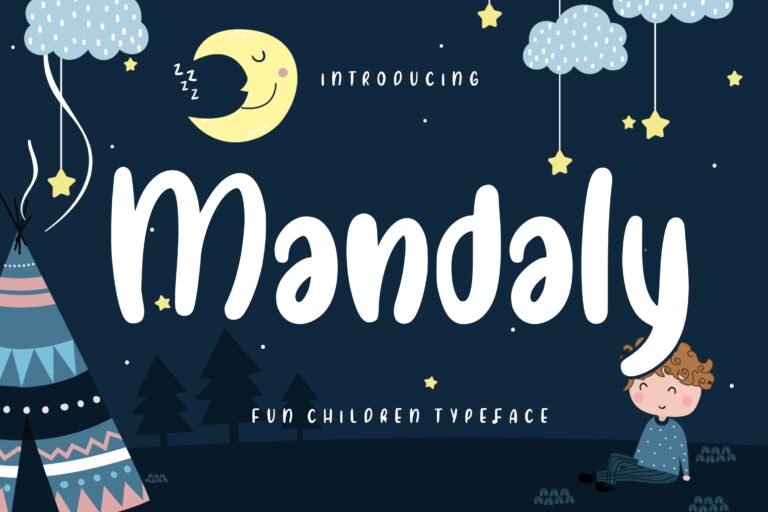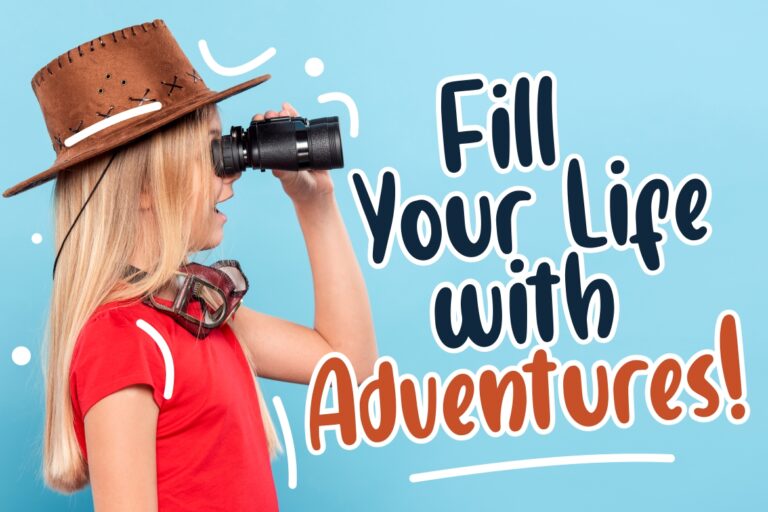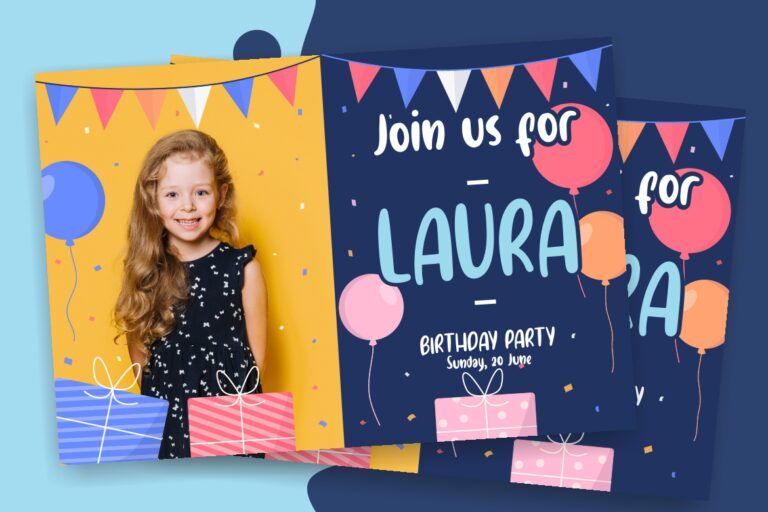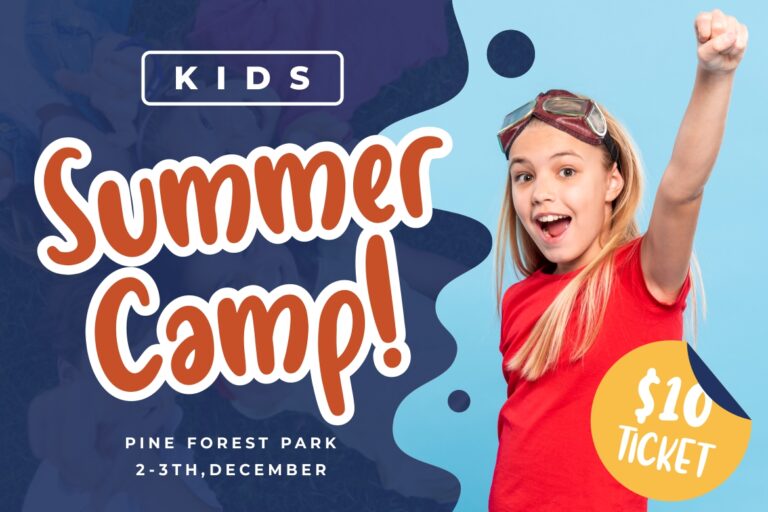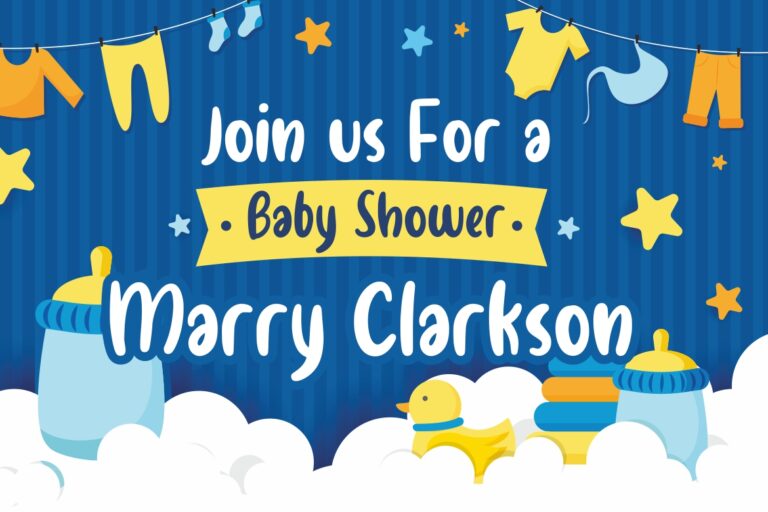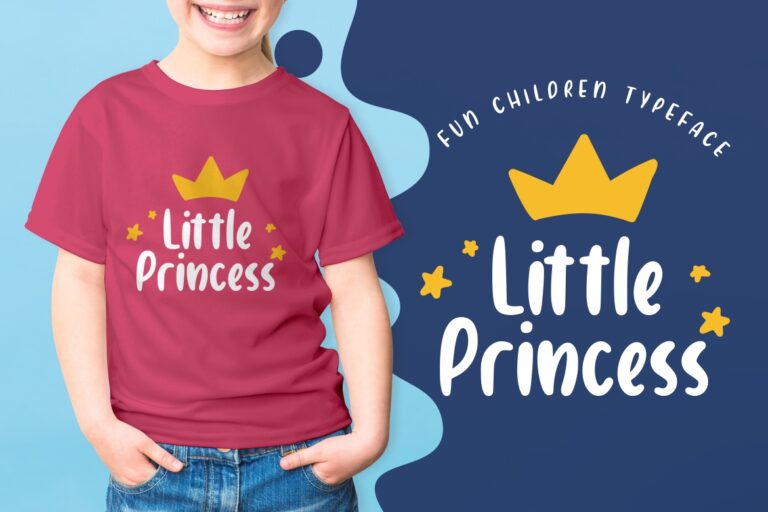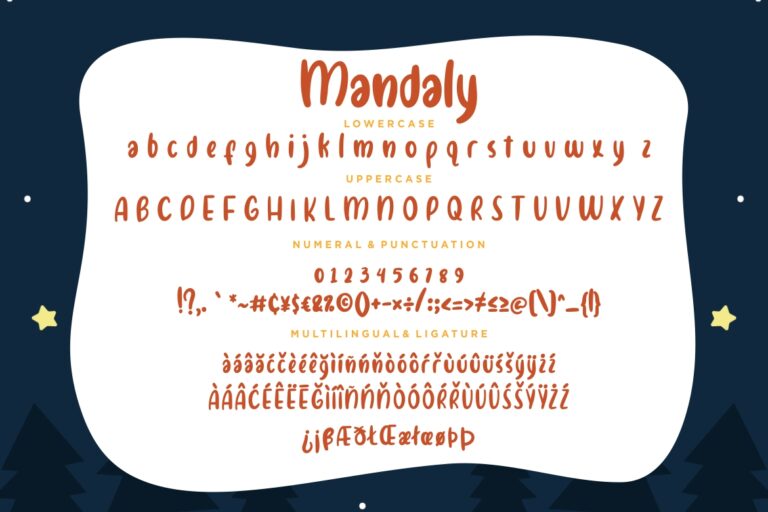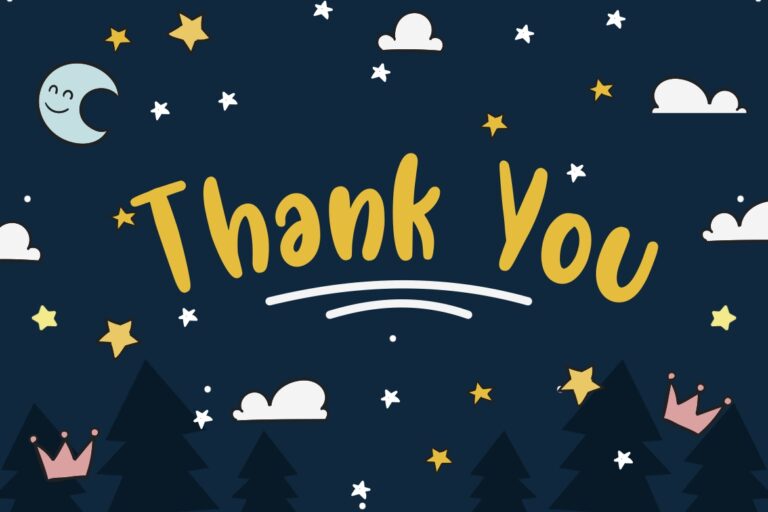
Mandaly Fun Children Typeface
Mandaly is playful display font which suitable to use for children related occasion.
Mandaly is perfect for branding projects, logo, wedding designs, social media posts, advertisements, product packaging, product designs, label, photography, watermark, invitation, stationery and any projects that need handwriting taste.
- Fonts include multilingual support for; ä ö ü Ä Ö Ü ß ¿ ¡